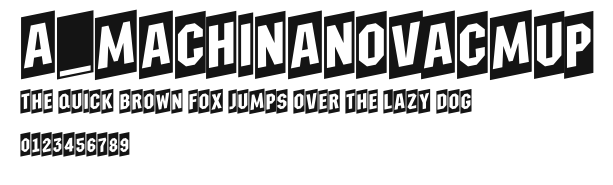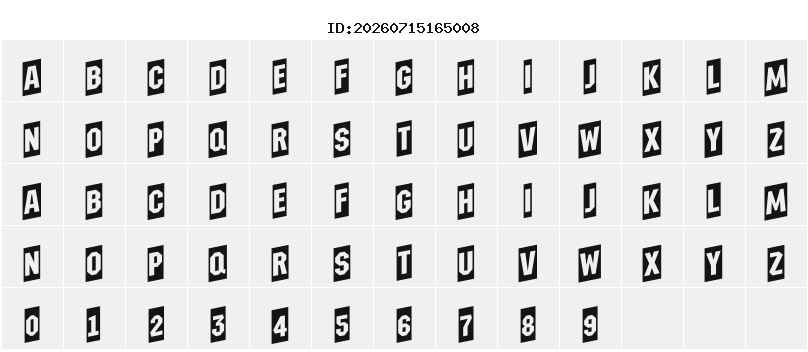
a_MachinaNovaCmUp Preview
• Font Name: a_MachinaNovaCmUp
• Font ID: a_MachinaNovaCmUp
• Full Font Name: a_MachinaNovaCmUp
• Version: 01.03
• PostScript Name: a_MachinaNovaCmUp
• Character Count: 271
About a_MachinaNovaCmUp.ttf
a_MachinaNovaCmUp.ttf is a modern, elegant sans-serif font designed for ultimate readability and visual harmony. Perfect for branding, headlines, web design, and print materials.